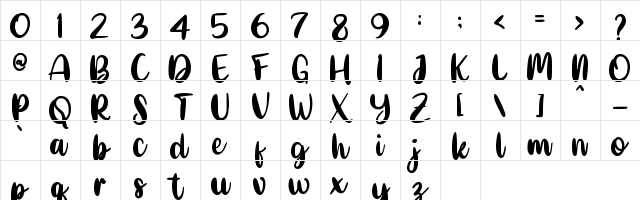
Complete Christmas Rainy Regular glyph index. Displaying only characters natively supported by Christmas Rainy Regular font.
Christmas Rainy is a composed and adaptable typeface that performs quietly and consistently across a wide range of design contexts.